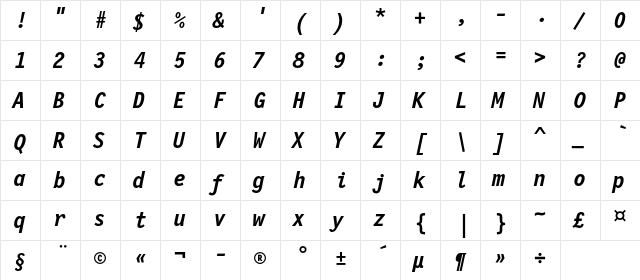
LettrGoth12C BT Bold Italic
Design Context for LettrGoth12C BT Typeface
LettrGoth12C BT is a composed and adaptable typeface that performs quietly and consistently across a wide range of design contexts. The dynamic lean of this cut emphasises speed and emphasis in any layout. Its bold stroke weight gives it real presence on the page.
Pro Tip: Try LettrGoth12C BT for annotation and caption copy alongside an upright companion — the contrast in angle creates a dynamic but ordered typographic system.